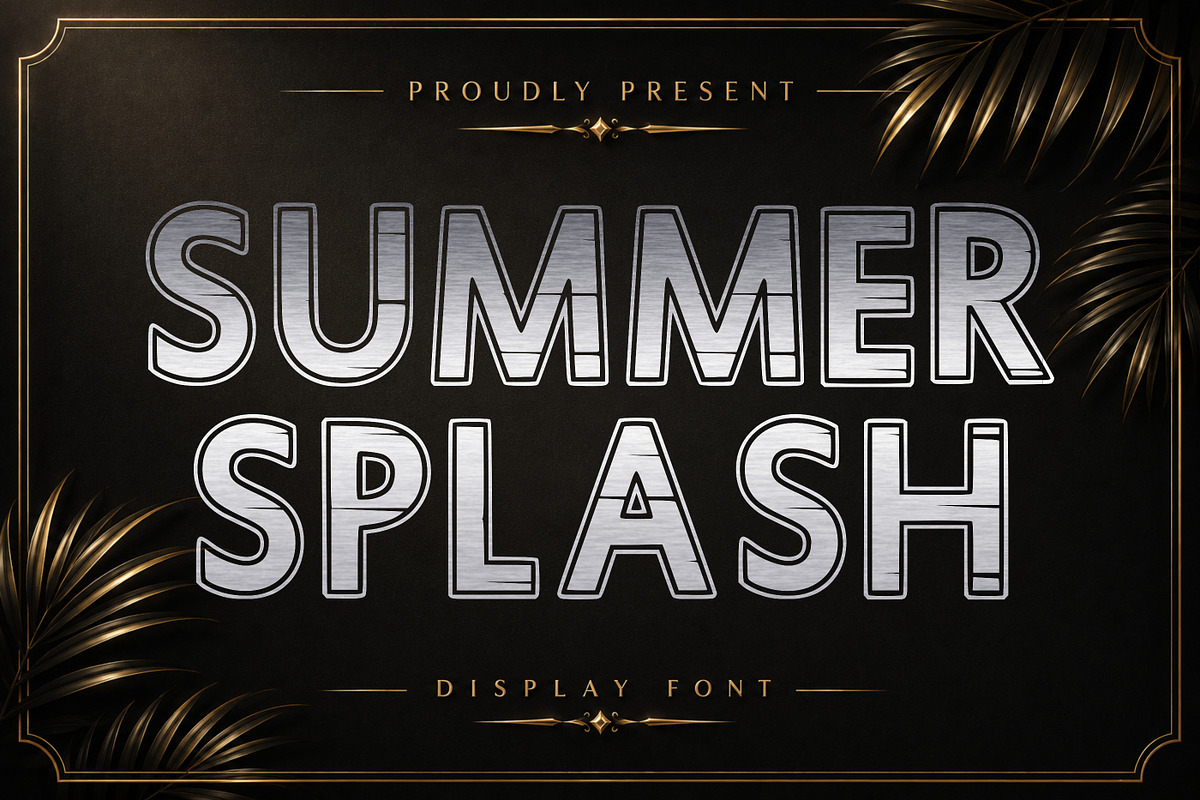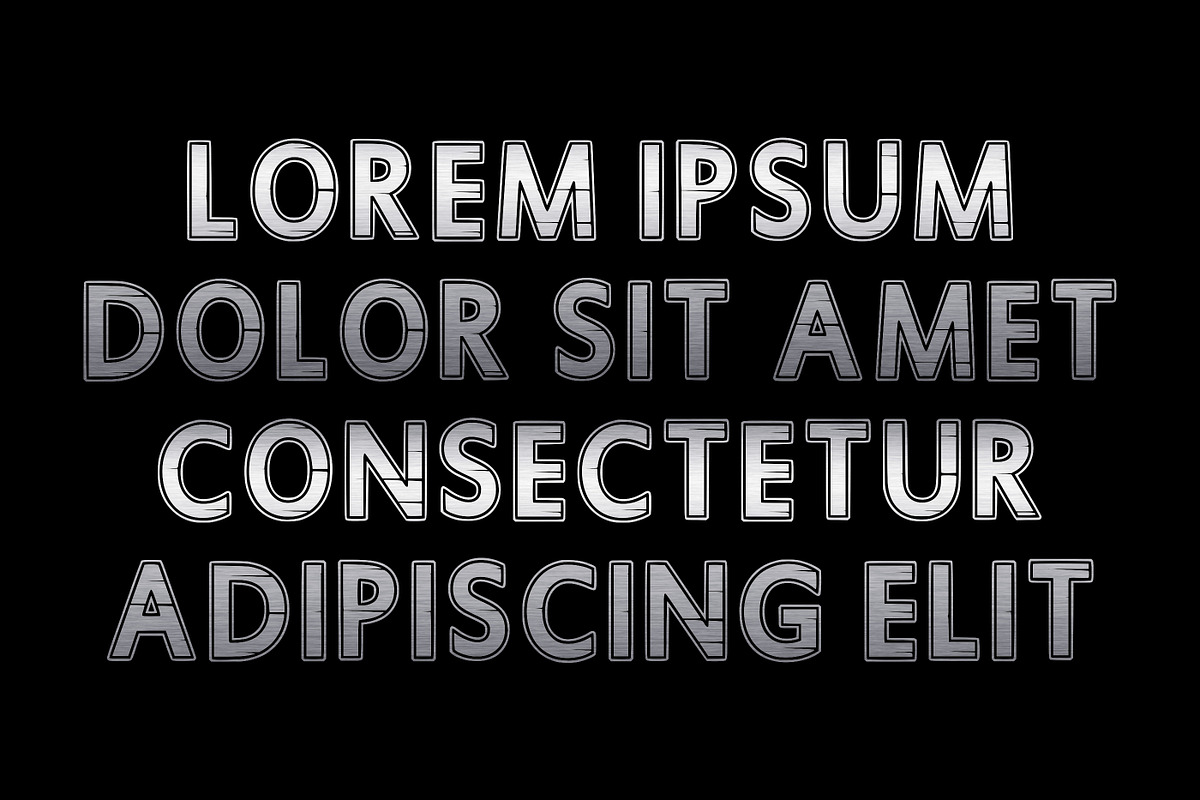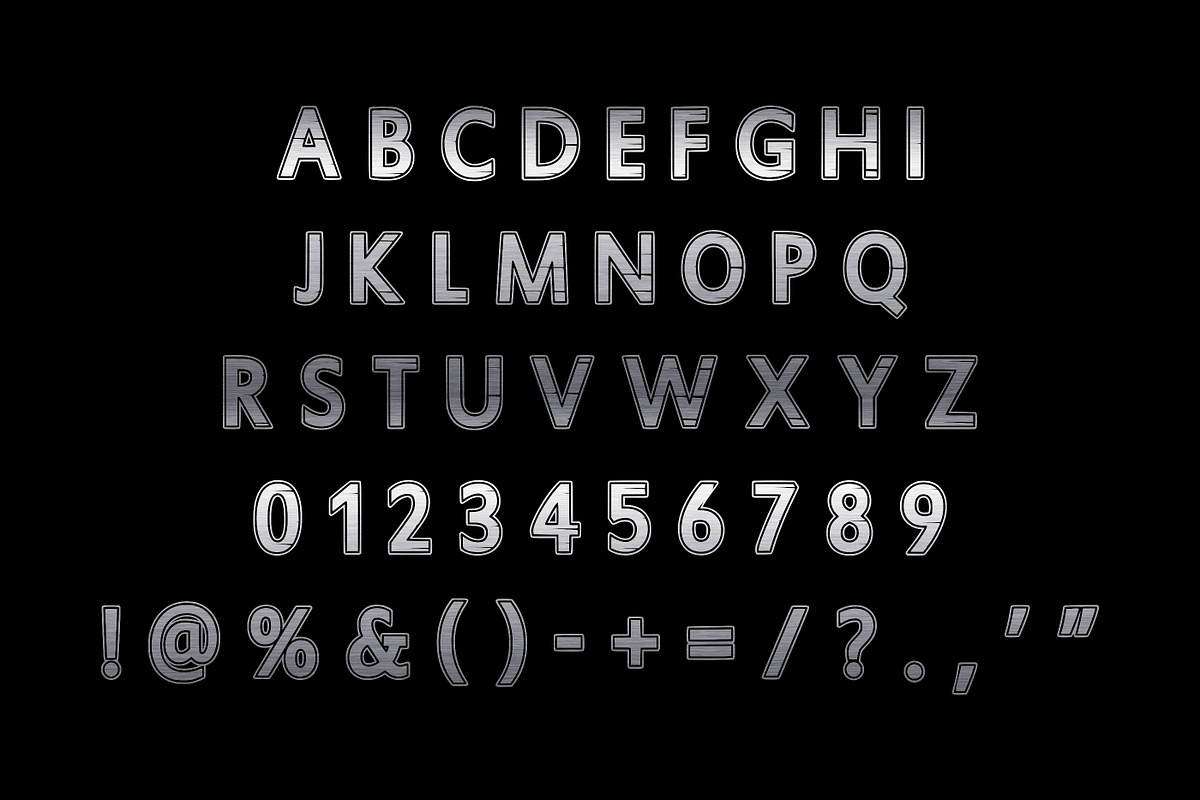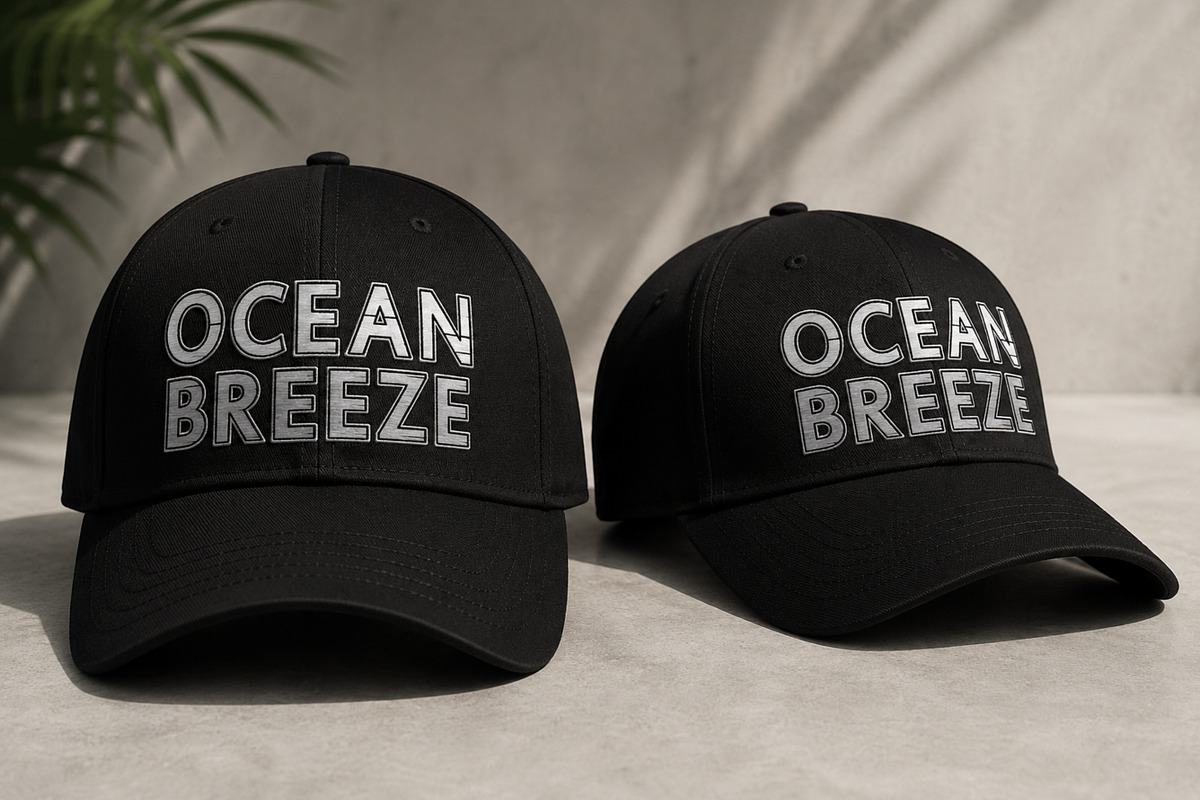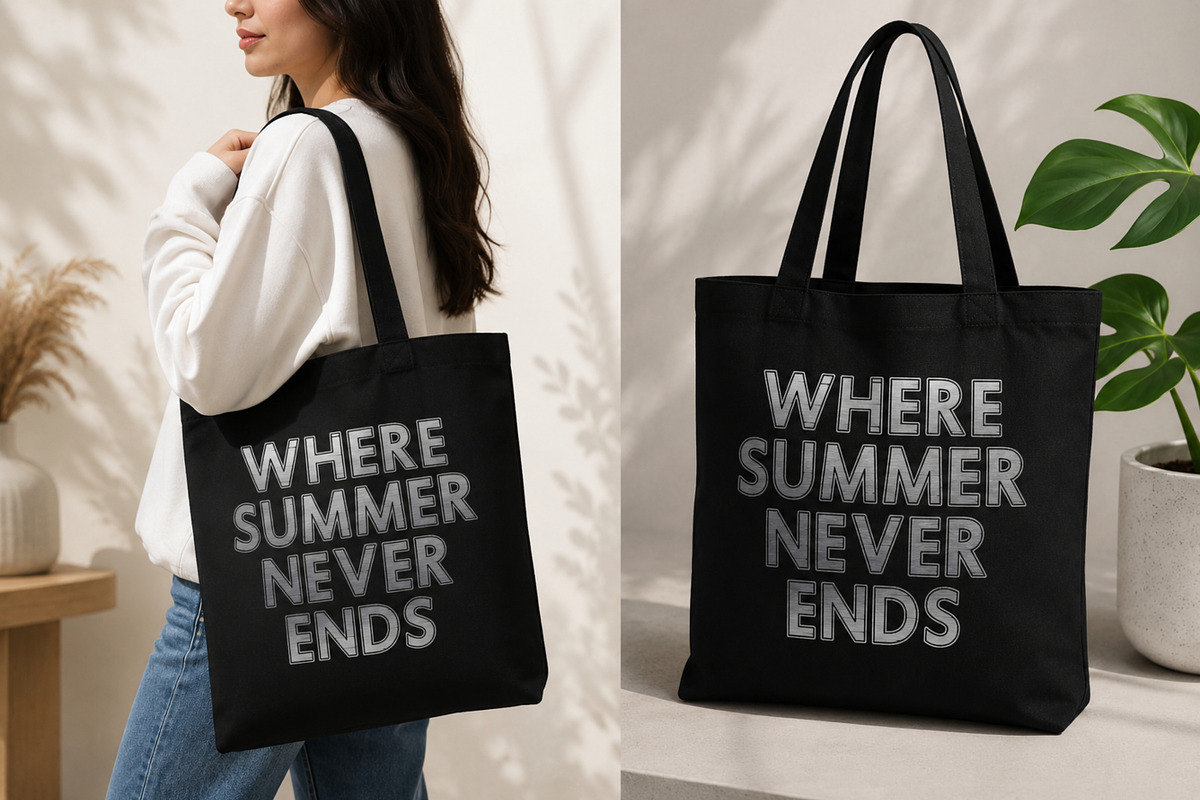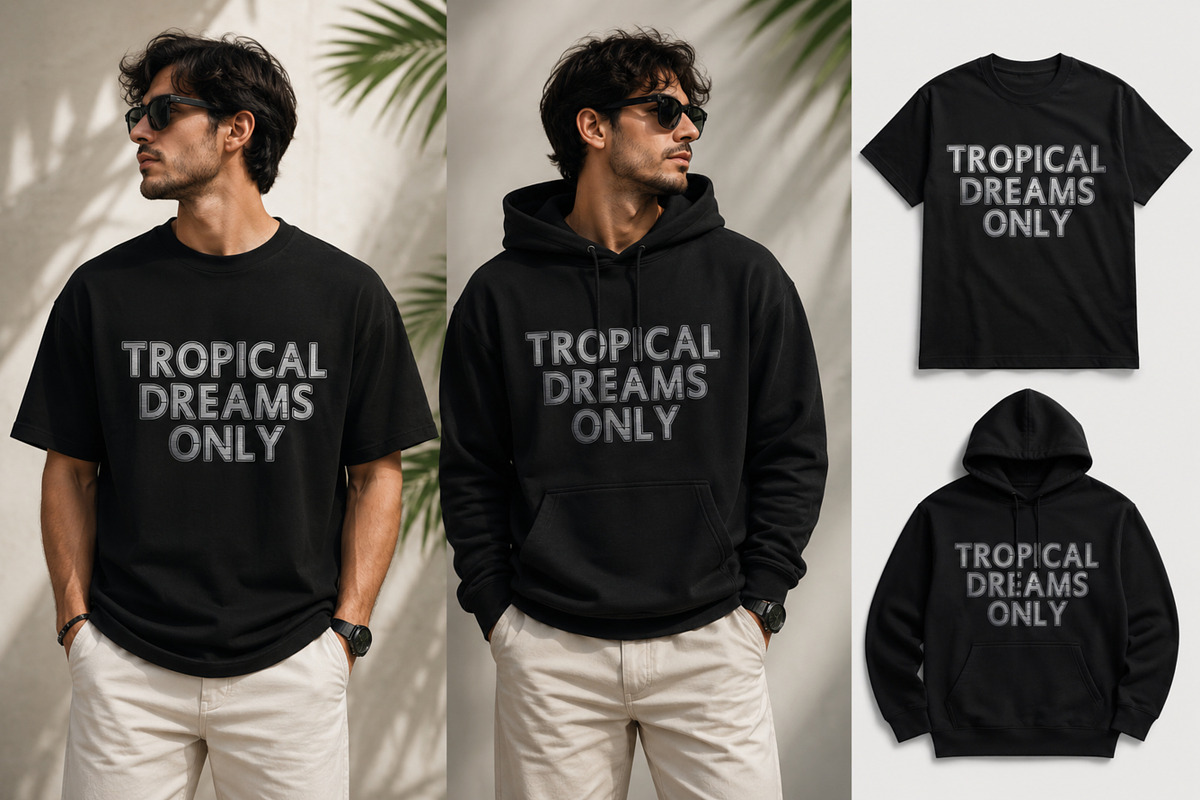
Summer Splash – Bold Outline
Summer Splash is a bold display font featuring thick outline letterforms with a unique hand-drawn splash texture that brings energy and personality to every design. Its playful and modern appearance makes it an excellent choice for summer-themed graphics, children's products, branding, merchandise, posters, logos, packaging, stickers, and social media content.
Designed to stand out in both print and digital media, Summer Splash delivers a cheerful, eye-catching look while remaining easy to read. Whether you're creating beach event posters, vacation branding, apparel, or creative crafts, this font adds a fresh and vibrant touch.
Uppercase Letters